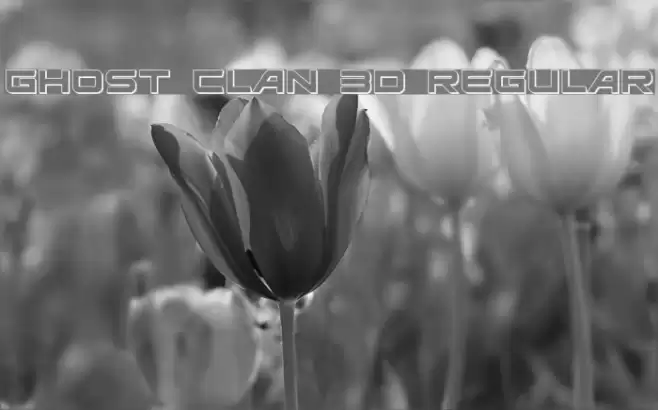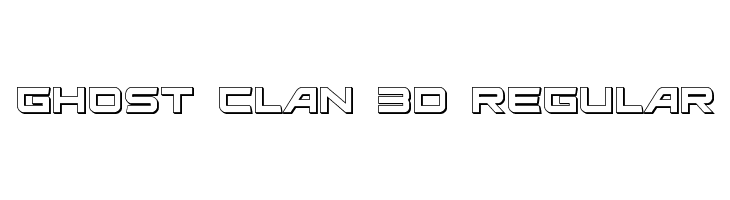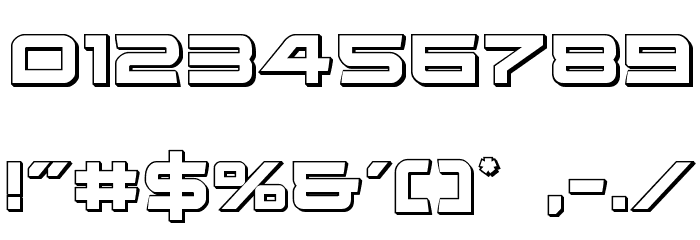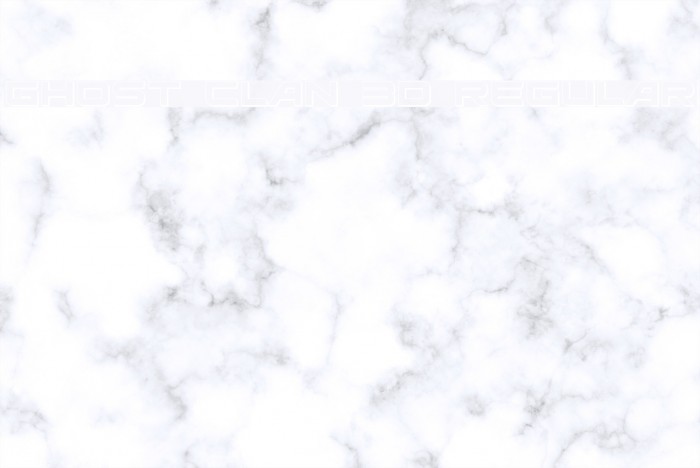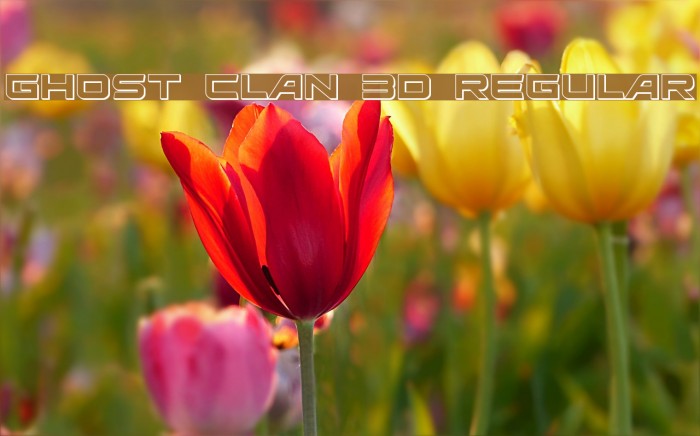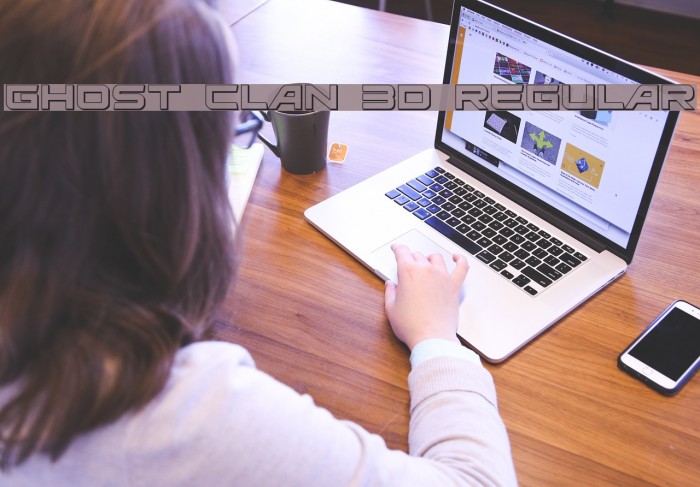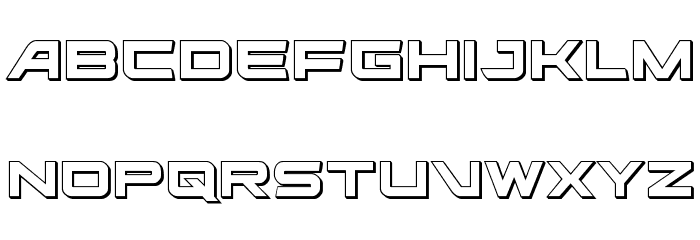
Ghost Clan 3D Regular Font
Ghost Clan 3D Regular Description
This font features a bold, futuristic design with a 3D effect that gives each character a sense of depth and dimension. The geometric shapes and clean lines create a modern and edgy appearance, making it ideal for projects that require a strong visual impact. The uppercase letters are particularly striking, with their angular forms and consistent stroke width. The numerals and special characters maintain the same stylistic approach, ensuring a cohesive look across all text elements. This font is perfect for digital and print media where a contemporary and dynamic style is desired.
A bold, futuristic font with a 3D effect and geometric design from Uncategorized fonts.
- Proposed Projects: Ideal for video game titles, tech branding, sci-fi posters, and modern advertising campaigns.